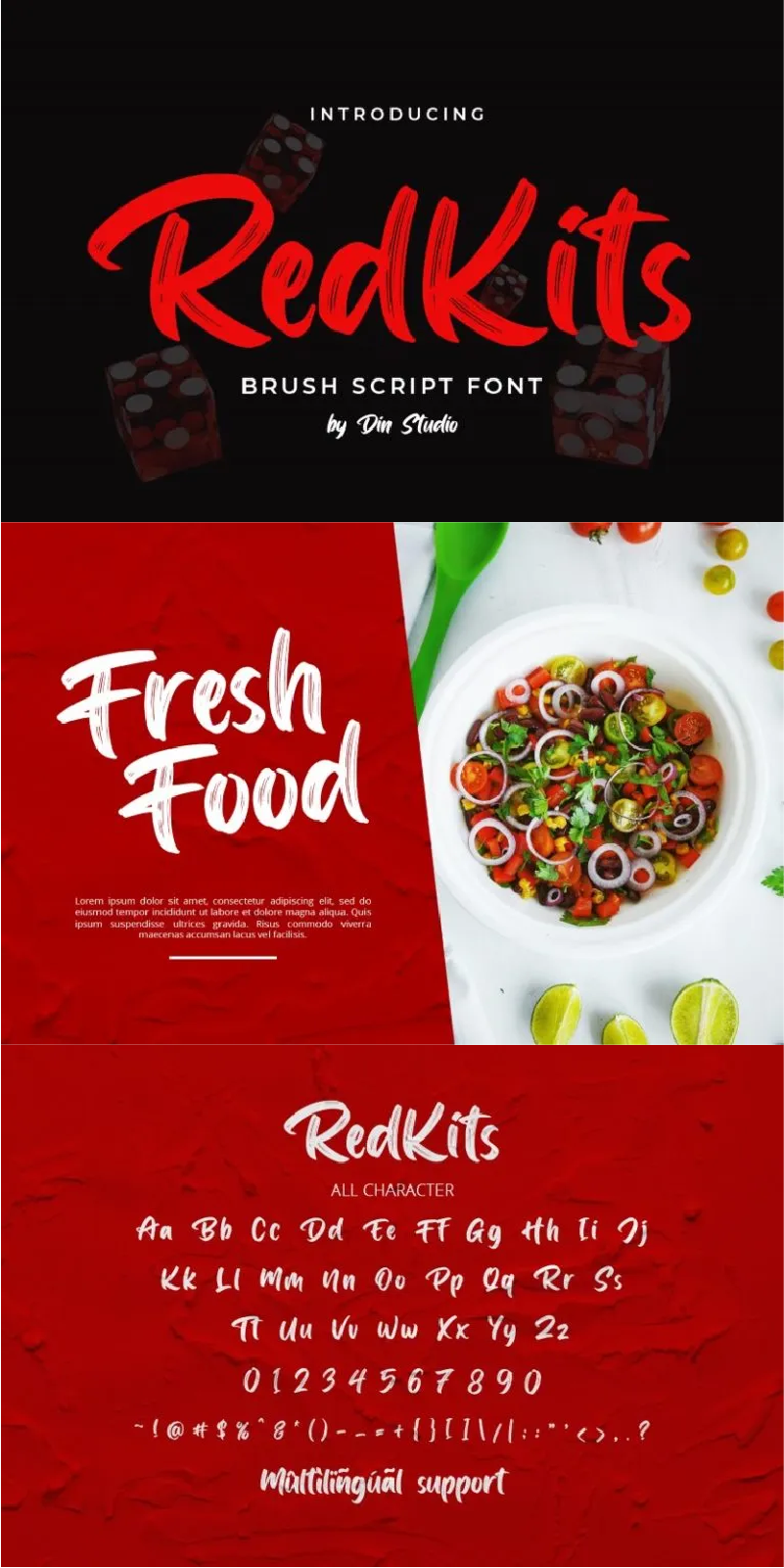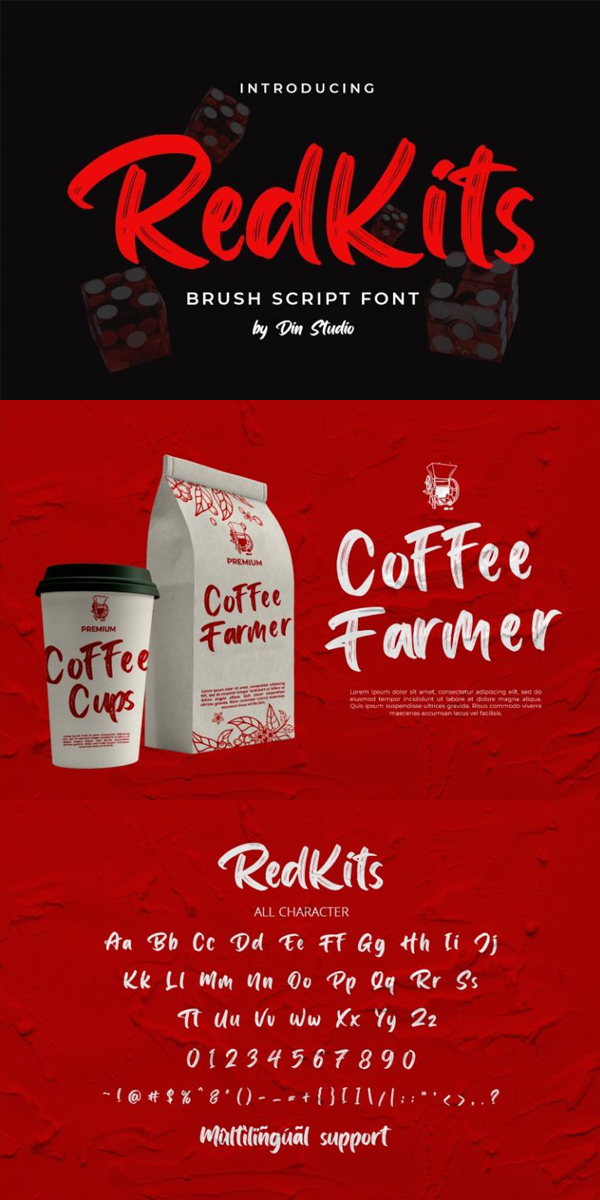
Red Kits Font
About Red Kits
RedKits is a beautiful brush font. The combination of handwritten and brush font will make your design project more attractive for any professional project branding. It is best used for logos, brandings and quotes. See the previews above to get some inspiration on how you can use them. Happy designing!